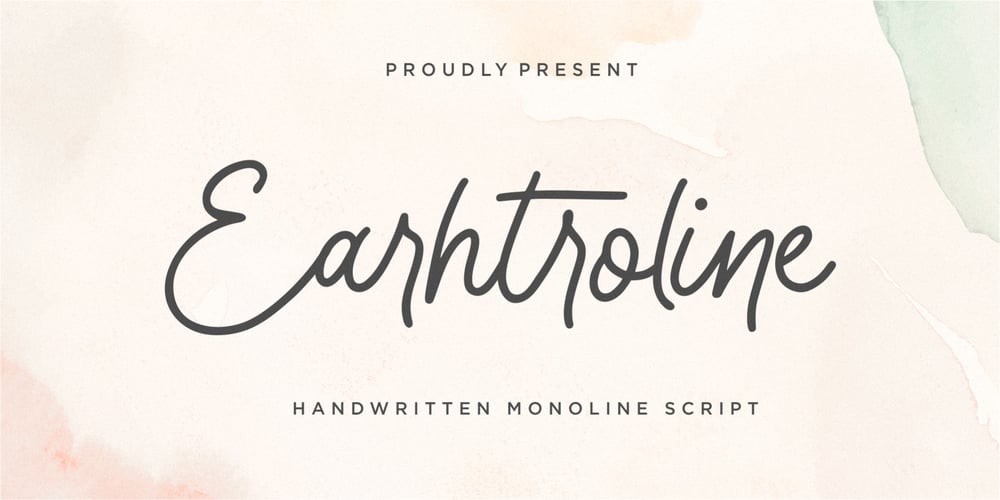
Earhtroline
Earhtroline font
Earhtroline Font Family was designed by Suhery Anto, Odies Dwi Yudhistira and published by Qwrtype Foundry. Earhtroline contains 1 styles and family package options. Earhtroline is a Handwritten Monoline Script FontEarhtroline is perfect for product packaging, branding project, megazine, social media, wedding, or just used to express words above the background.Earhtroline also multilingual support.Enjoy the font. Thank you!